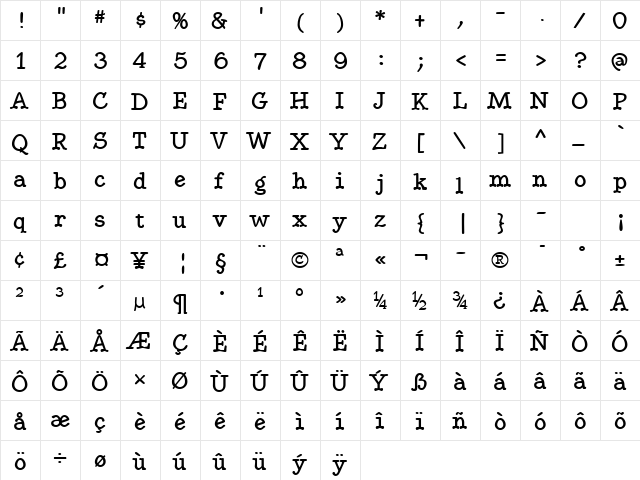
BetterKamp Bold
Design Context for BetterKamp Typeface
BetterKamp offers clean, dependable letterforms without strong stylistic allegiance, making it a practical choice for designers who need flexibility. Its bold stroke weight gives it real presence on the page.
Pro Tip: Use BetterKamp in both headline and body roles to test its range before committing to a single application.